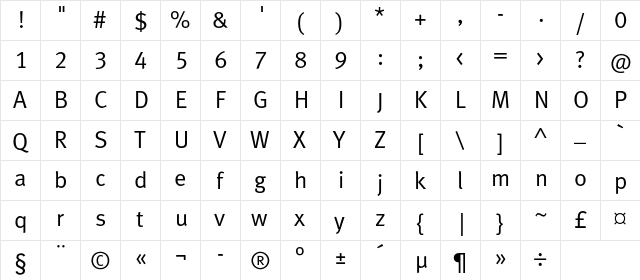
MetaNormalLFC Regular
Design Context for MetaNormalLFC Typeface
MetaNormalLFC takes a measured approach to typography — its balanced proportions and neutral character make it a reliable workhorse for both digital and print work.